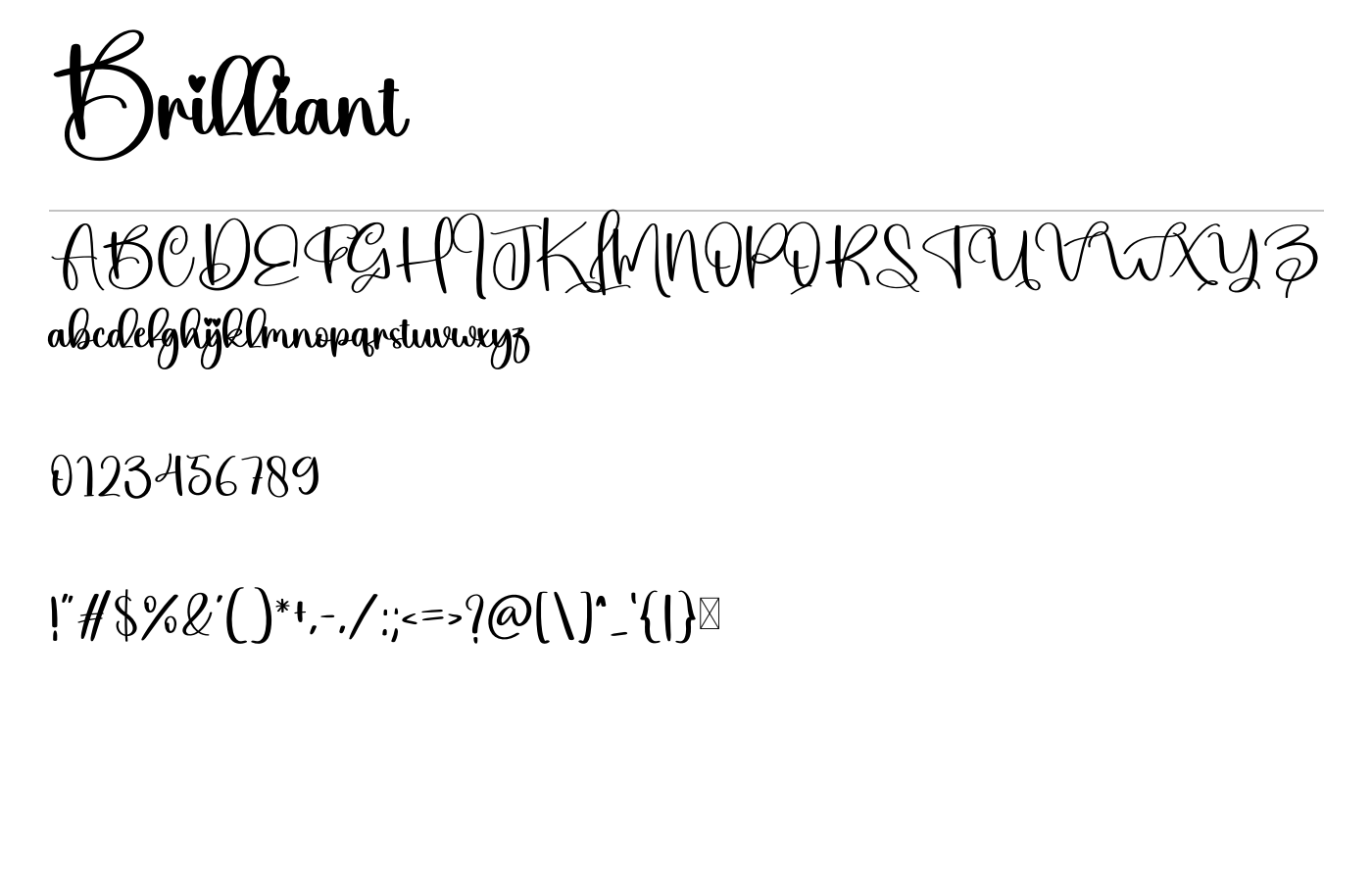
Brilliant Font is a playful and elegant script typeface with a hand-drawn feel, featuring smooth, flowing strokes and charming decorative elements like heart-shaped dots. Its light weight and tall, narrow letterforms give it a delicate and whimsical character, perfect for adding a personal touch to invitations, greeting cards, branding, and creative projects that seek a warm, friendly vibe. This font works beautifully for headlines and logos where a unique, decorative style is desired.
Brilliant Font